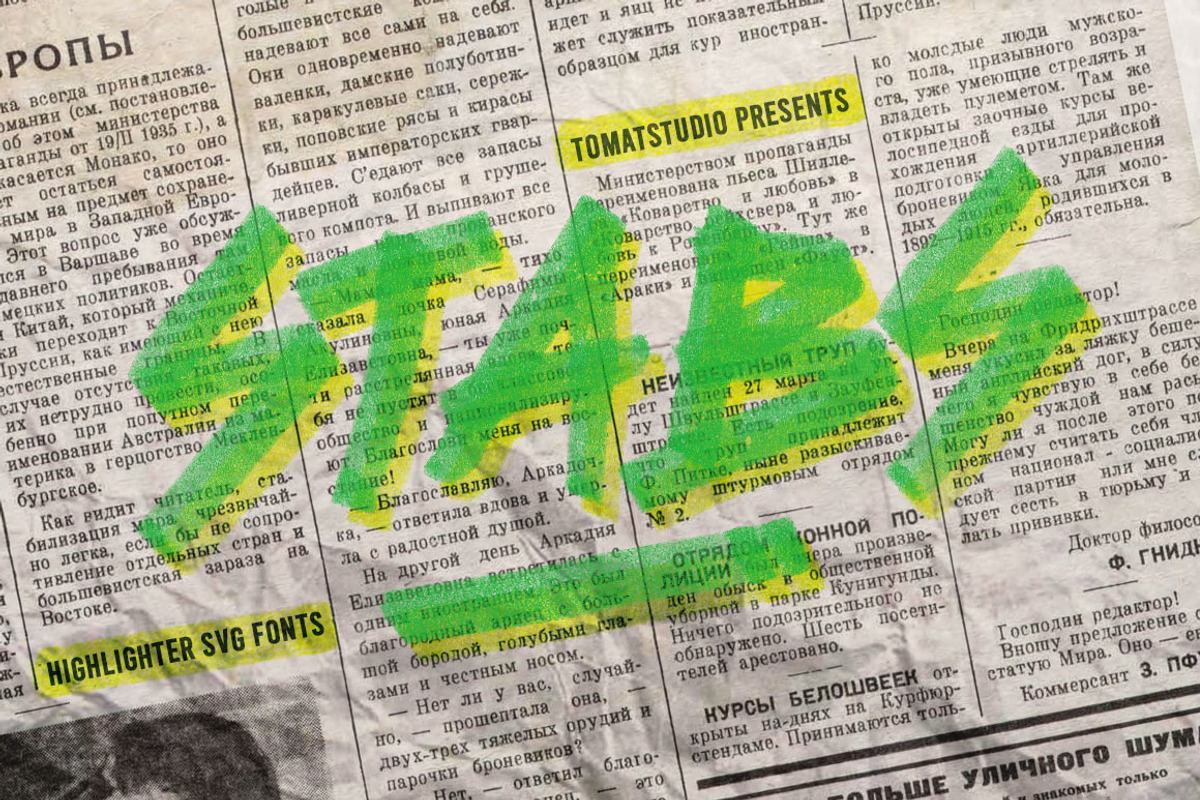
Bold, edgy, and full of energy, Stabs Highlighter SVG Fonts Free Download is a vibrant typeface that mimics the look of real highlighter strokes. Ideal for posters, album covers, streetwear branding, and social media graphics, this SVG font brings raw texture and visual punch to your designs with its authentic marker-style lettering.
Unlike standard vector fonts, SVG fonts like Stabs retain the detail and depth of hand-drawn brush strokes, giving your typography an expressive and handcrafted vibe. It’s perfect for creators who want to stand out with a modern, rebellious, and creative aesthetic.